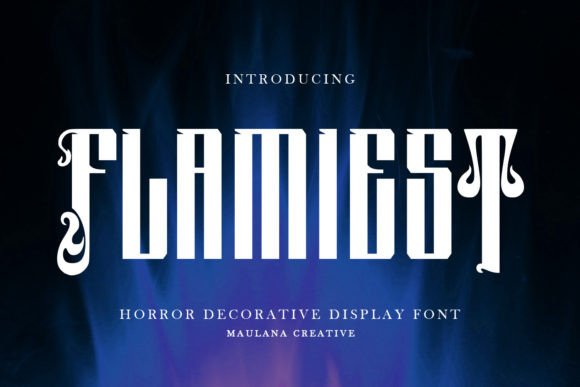
Introducing Flamiest Font: The Spookiest Horror Display Font for Your Creepy Designs
Are you looking for a font that can add a spooky and eerie touch to your designs? Look no further than Flamiest Font, a horror display font that is sure to send chills down the spine of your audience. With its sharp and jagged letters that resemble flames, Flamiest Font is perfect for creating a scary atmosphere in posters, invitations, and Halloween designs.
What is Flamiest Font?
Flamiest Font is a unique and eye-catching horror display font that is designed to add a creepy touch to any project. Its sharp and jagged letters are reminiscent of flames, making it perfect for creating a spooky and eerie atmosphere. The font is ideal for horror-themed artwork, Halloween designs, and any other project that requires a bold and attention-grabbing font.
Key Features of Flamiest Font
- Sharp and Jagged Letters: The font features sharp and jagged letters that resemble flames, adding a creepy touch to any project.
- Spooky and Eye-Catching: Flamiest Font is designed to be attention-grabbing and spooky, making it perfect for horror-themed artwork and Halloween designs.
- Perfect for Posters and Invitations: The font is ideal for creating posters, invitations, and other designs that require a bold and attention-grabbing font.
- Easily Customizable: Flamiest Font is easily customizable, allowing you to adjust the font to fit your design needs.
How to Use Flamiest Font in Your Designs
Flamiest Font is a versatile font that can be used in a variety of designs, from posters and invitations to Halloween-themed artwork and horror-themed projects. Here are some ideas for using Flamiest Font in your designs:
- Halloween Posters: Use Flamiest Font to create spooky and eye-catching posters for Halloween parties, haunted houses, and other Halloween events.
- Horror Movie Posters: The font is perfect for creating horror movie posters that require a bold and attention-grabbing font.
- Invitations: Use Flamiest Font to create spooky and eye-catching invitations for Halloween parties, horror-themed events, and other creepy gatherings.
- Social Media Graphics: The font can be used to create social media graphics that require a bold and attention-grabbing font, such as Facebook posts, Instagram stories, and Twitter headers.
Benefits of Using Flamiest Font
Flamiest Font offers a range of benefits for designers, including:
- Unique and Eye-Catching Design: The font features a unique and eye-catching design that is sure to grab the attention of your audience.
- Perfect for Horror-Themed Artwork: Flamiest Font is ideal for horror-themed artwork, Halloween designs, and other projects that require a spooky and eerie atmosphere.
- Easily Customizable: The font is easily customizable, allowing you to adjust the font to fit your design needs.
- Time-Saving: Flamiest Font can save you time and effort in your design projects, as it provides a quick and easy way to add a spooky and eerie touch to your designs.
Tips and Tricks for Using Flamiest Font
Here are some tips and tricks for using Flamiest Font in your designs:
- Use it Sparingly: Use Flamiest Font sparingly in your designs, as too much of the font can be overwhelming.
- Pair it with Other Fonts: Pair Flamiest Font with other fonts to create a unique and eye-catching design.
- Adjust the Font Size: Adjust the font size to fit your design needs, using larger font sizes for headings and smaller font sizes for body text.
- Experiment with Colors: Experiment with different colors to find the perfect combination for your design.
Flamiest Font is a spooky and eye-catching horror display font that is perfect for adding a creepy touch to your designs. With its sharp and jagged letters that resemble flames, Flamiest Font is ideal for horror-themed artwork, Halloween designs, and other projects that require a bold and attention-grabbing font. By following the tips and tricks outlined in this article, you can use Flamiest Font to create unique and eye-catching designs that are sure to grab the attention of your audience.